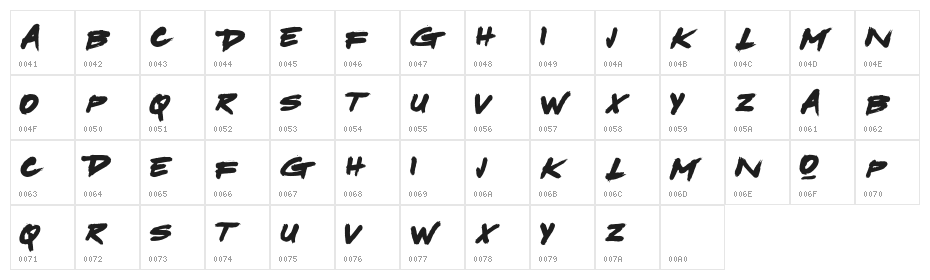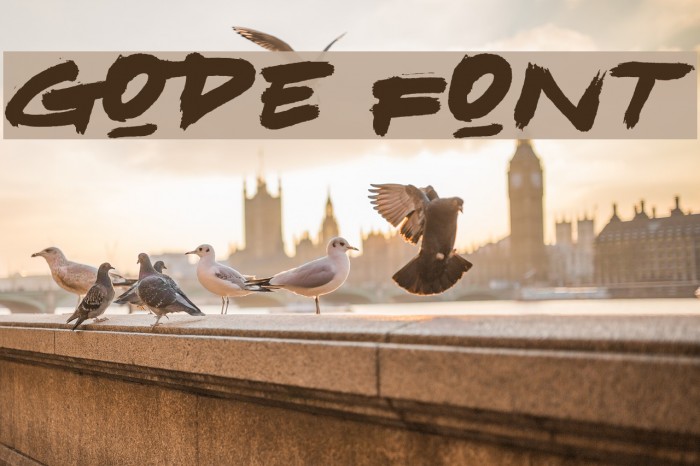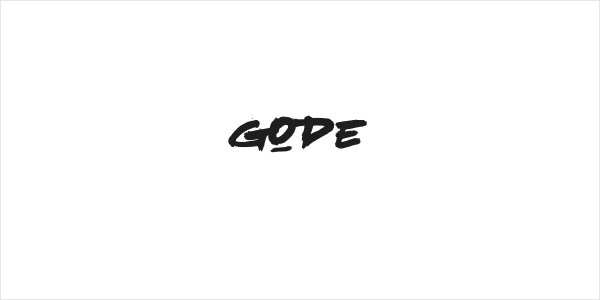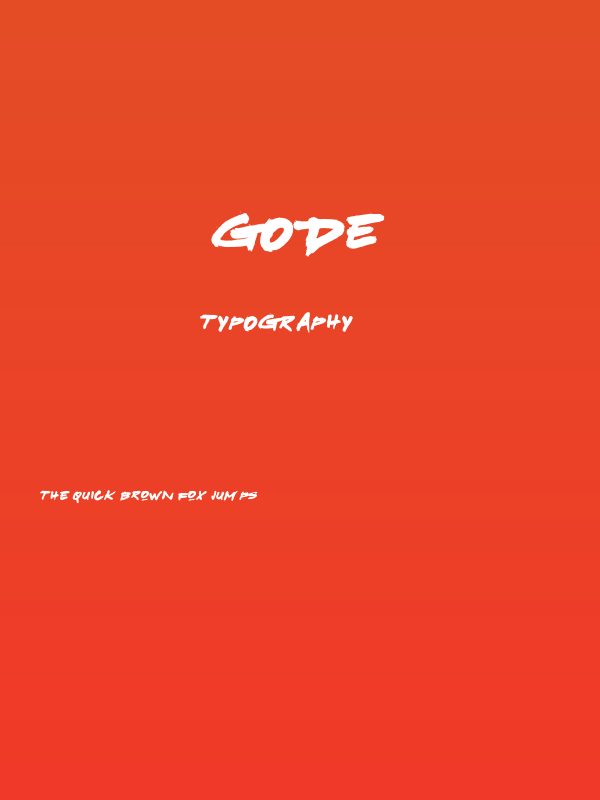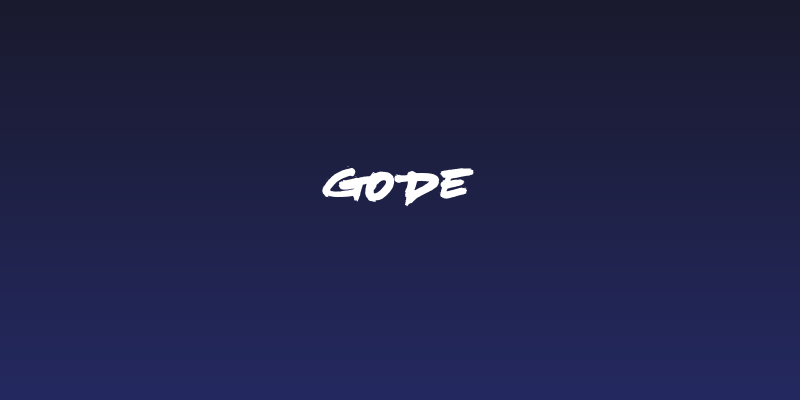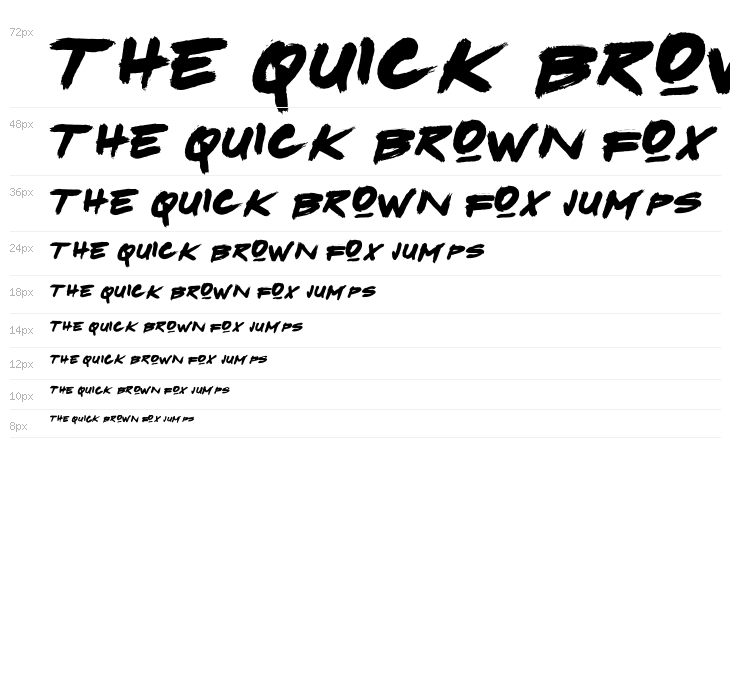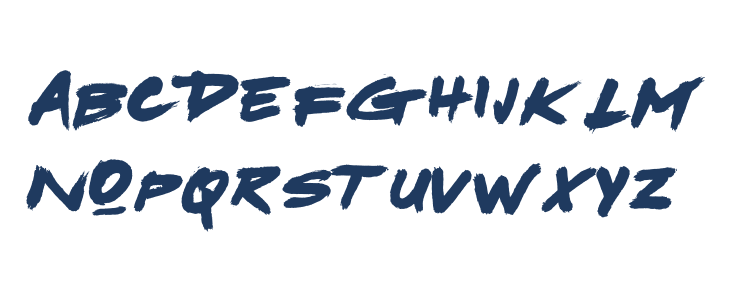
Gode Font
Gode Description
This font features a bold, expressive style with a handwritten appearance. The strokes are thick and dynamic, giving it a strong presence. Each character is crafted with a sense of movement, as if painted with a brush. The uppercase letters are particularly striking, with sharp angles and fluid curves. The lowercase letters maintain the same energetic style, creating a cohesive look throughout the alphabet. This font is ideal for making a statement, with its high contrast and artistic flair.
| Use Case | Logos, Headlines, Posters |
| Proposed Projects | Ideal for branding, posters, and creative projects that require a strong, artistic touch. |